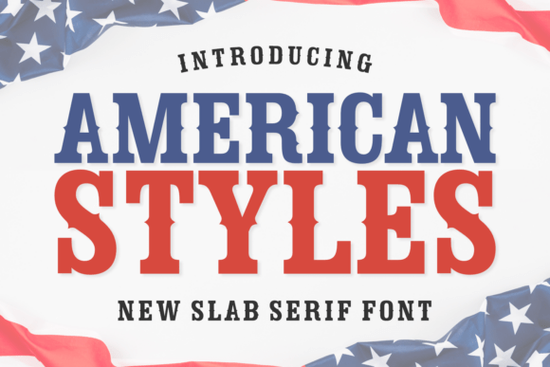
If you're looking for a bold, vintage-inspired font that captures the spirit of classic American design, American Styles Font is a solid choice. It’s built with a strong slab serif structure that feels both grounded and expressive perfect for headlines that need to stand out without overwhelming the rest of your layout.
What makes American Styles Font special?
The font stands out thanks to its unique blend of strength and refinement. The blocky, heavy letters are balanced by subtle calligraphic details especially in the tapering strokes and pointed serifs. These small touches give it a handcrafted feel, like something you might see on a 1950s poster or a handmade sign from a local diner.
Beneath the surface, there’s a soft woodblock ink texture woven into each character. This isn’t just a visual effect it adds depth and warmth, making the text feel more tactile and authentic. Whether you’re designing for print or digital use, this detail helps your work look less “digital” and more hand-made.
There’s also a crisp drop shadow applied subtly across the entire typeface. It enhances legibility and gives the font a slight lift off the page, which works well for banners, flyers, and packaging where visibility matters.
When should you use American Styles Font?
This font shines in projects that celebrate heritage, patriotism, or rustic charm. It’s especially effective for:
- Independence Day event posters and festival materials
- Historical or political campaign visuals with a vintage tone
- Parade signs, community events, or local festivals
- Brewery and distillery labels that want a nostalgic, artisanal vibe
- Veteran appreciation designs or memorial tributes
- Apparel prints for t-shirts, hats, or tote bags
You’ll find it works best as a headline or display font. Pair it with simpler, clean sans-serif fonts for body text to keep your design balanced and readable.
How does it fit into modern design workflows?
Whether you’re a small business owner creating promotional material, a crafter making custom prints, or a print-on-demand seller building product mockups, American Styles fits right into your toolkit. Its bold presence means your message gets noticed fast without needing extra graphics or complex layouts.
If your project calls for a bold, timeless look with a touch of authenticity, American Styles Font brings that energy without overcomplicating things. It’s not flashy, but it’s memorable and that’s what good design often comes down to.